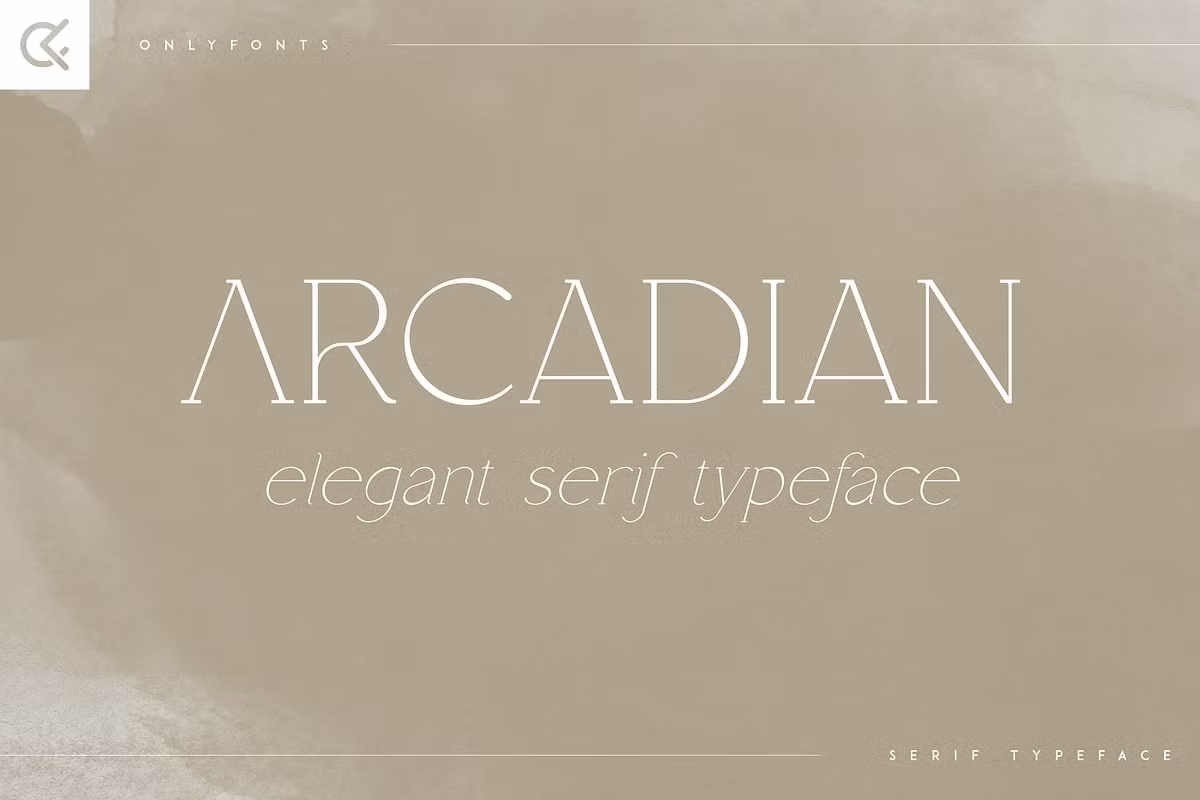
Arcadian - Elegant Serif Typeface Free Download is a refined and sophisticated serif typeface designed to bring timeless elegance to your designs. With its balanced proportions, graceful serifs, and high contrast, this font is perfect for luxury branding, editorial layouts, invitations, logos, and more.
The Arcadian font combines classic serif elements with a modern, sleek touch, ensuring readability while maintaining a sense of luxury and refinement. It’s ideal for projects that require a sophisticated and professional look, whether for high-end brands, chic event invitations, or elegant marketing materials.
Add elegance and timeless charm to your designs with Arcadian!